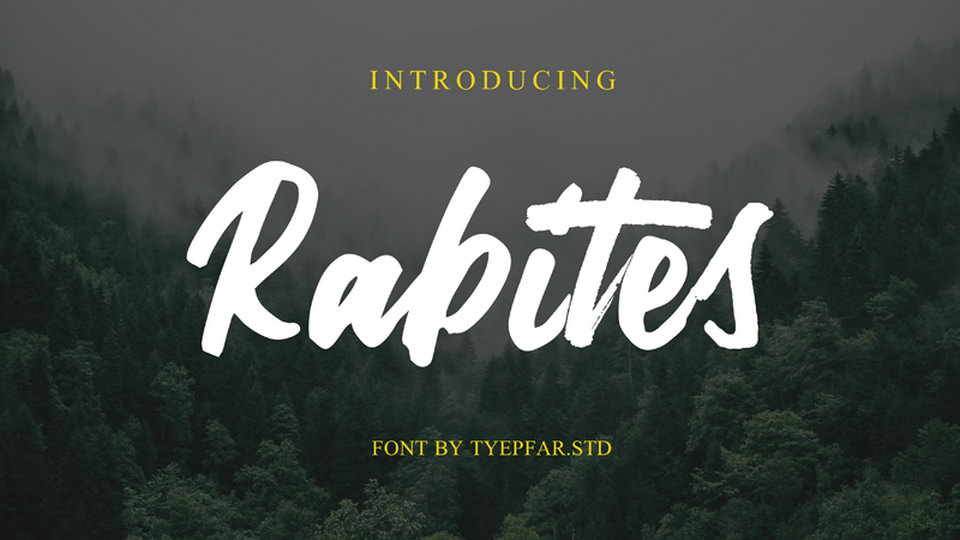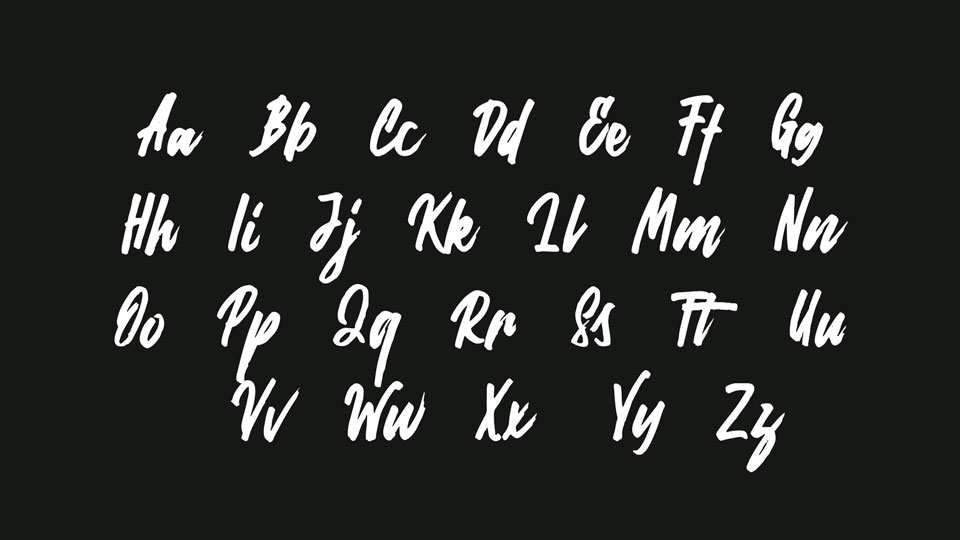
Rabites is a hand painted bold, free-flowing and confident brush font. It contains uppercase and lowercase letters only.
Rabites font fits great for labels and badges, product packaging, merchandise, branding projects and social media.